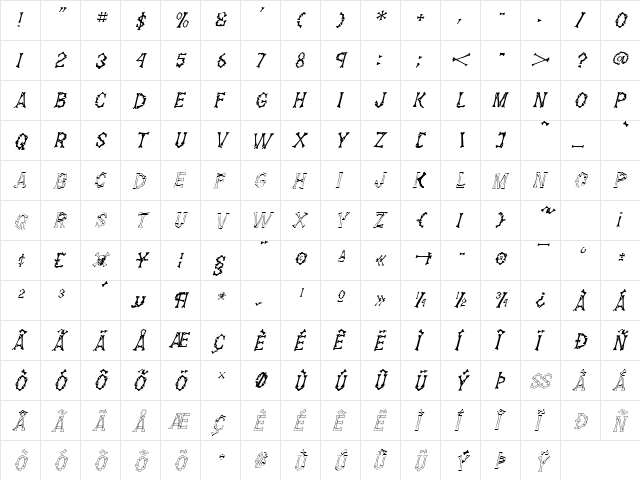
Dem Bones Italic Font Preview
Dem Bones Italic
Design Context for Dem Bones Typeface
Dem Bones is a composed and adaptable typeface that performs quietly and consistently across a wide range of design contexts. The slanted form adds forward momentum and visual energy.